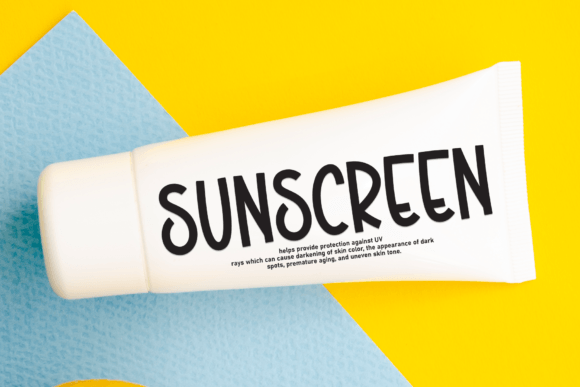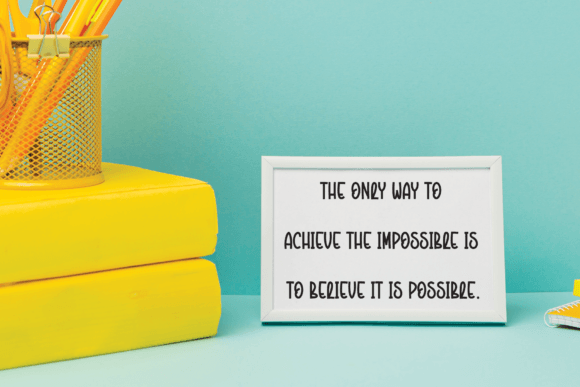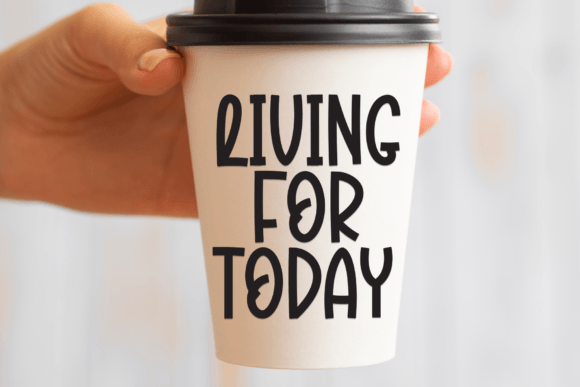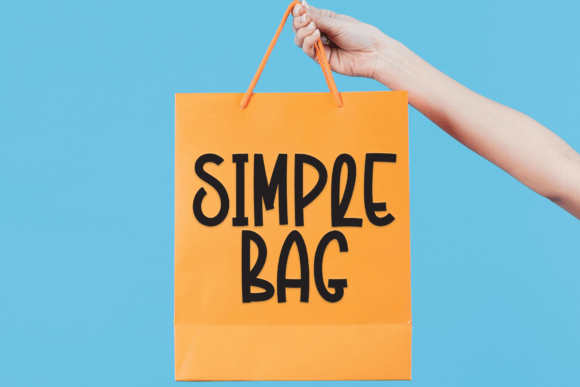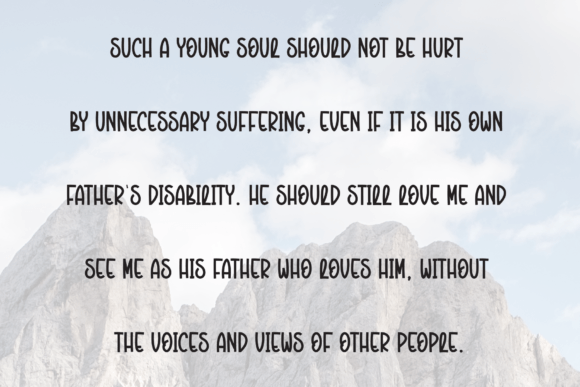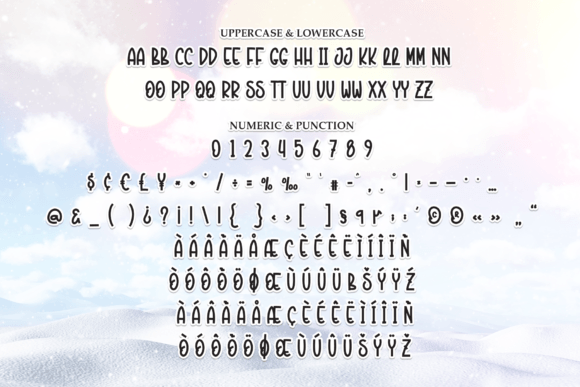
Introduction to Snow Paradise Font
Snow Paradise is a versatile, stylish, and playful display font perfect for a wide spectrum of applications such as greeting cards, headlines, and many more.
Add it to any of your creative projects, and it will give them a romantic and exquisite feel .
Key Features of Snow Paradise Font
Why Choose Snow Paradise Font?
Snow Paradise Font offers exceptional quality and versatility, making it a valuable addition to your design toolkit. Whether you’re creating for personal projects or commercial use, Snow Paradise Font delivers professional results.